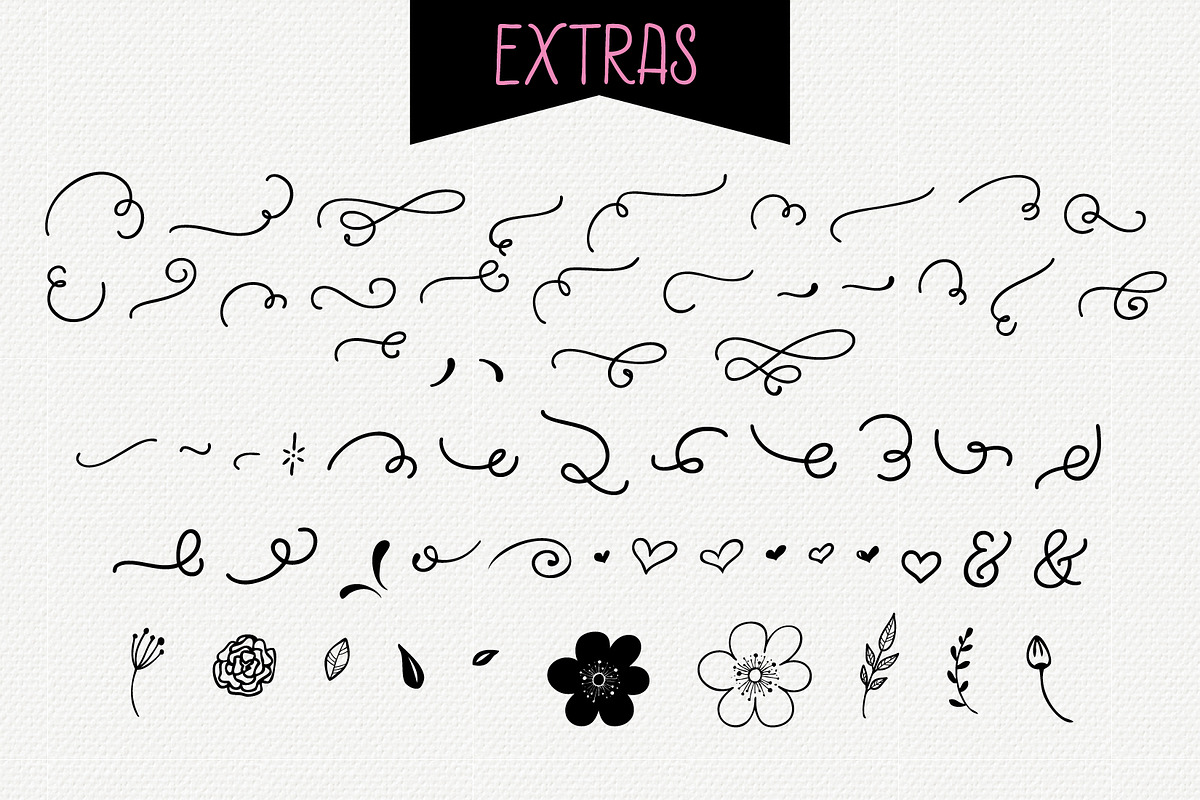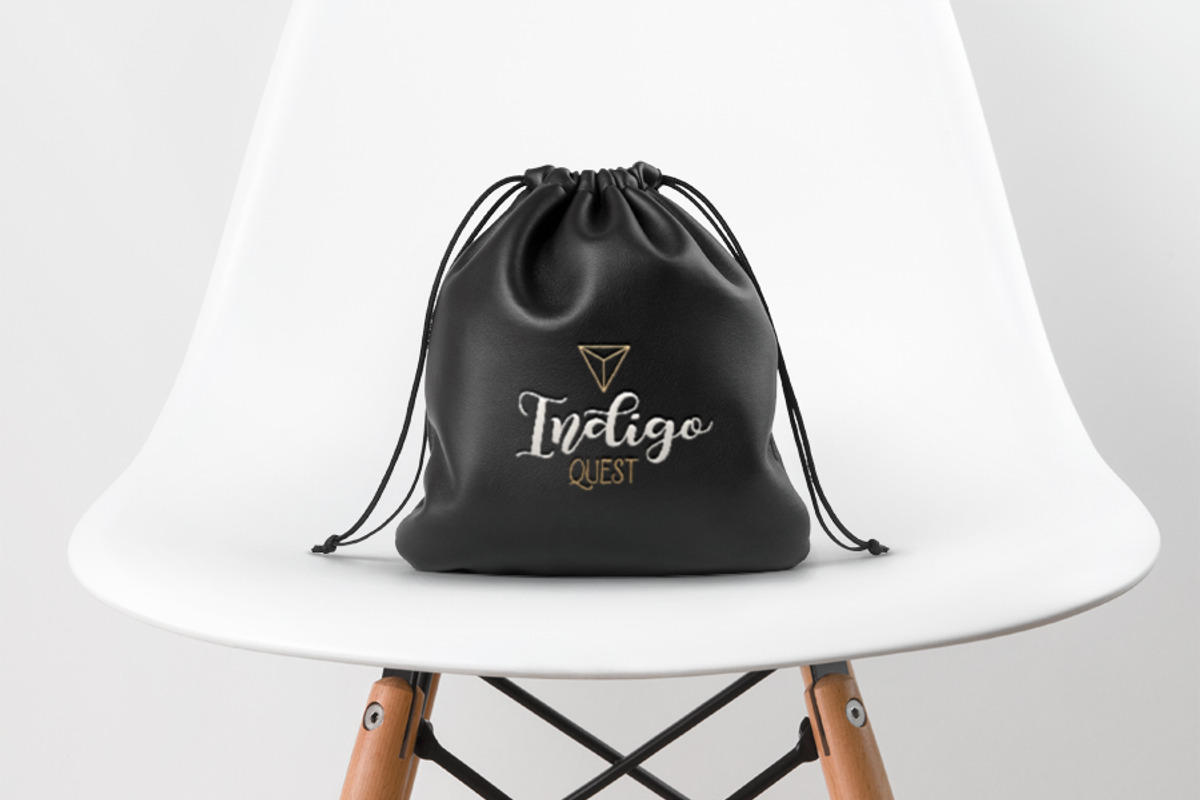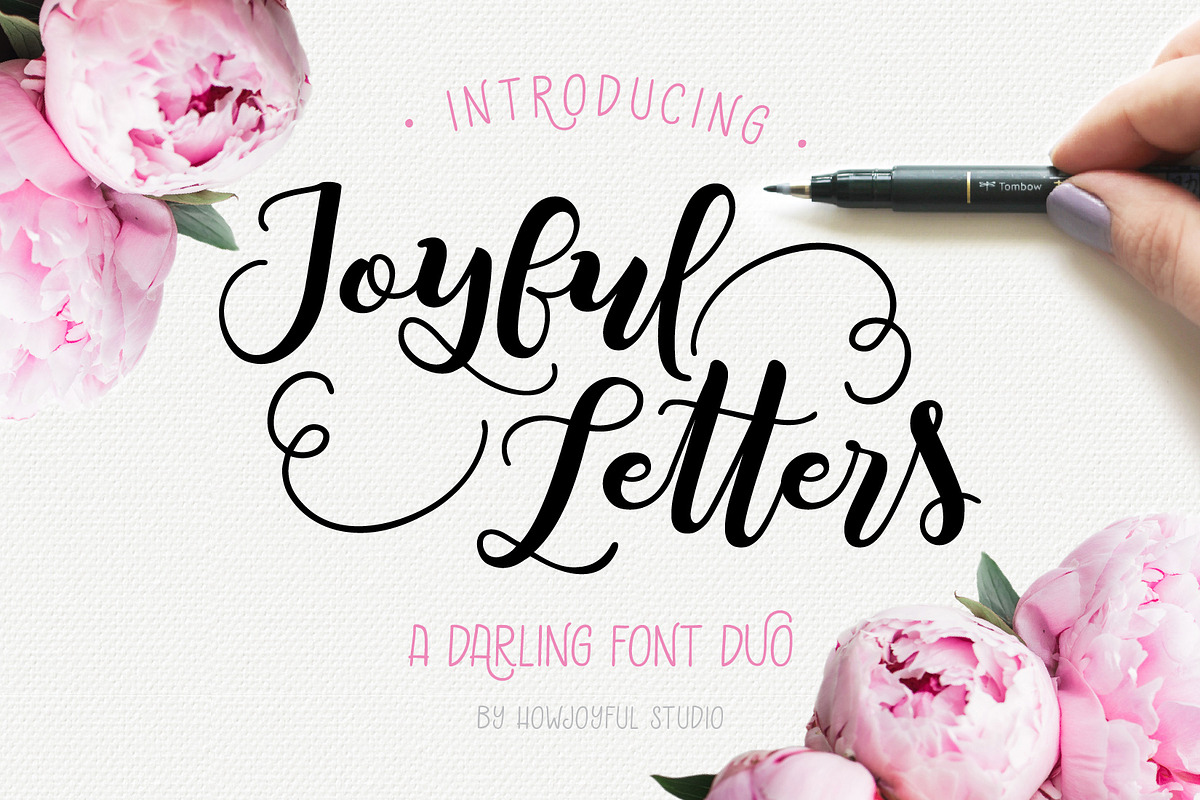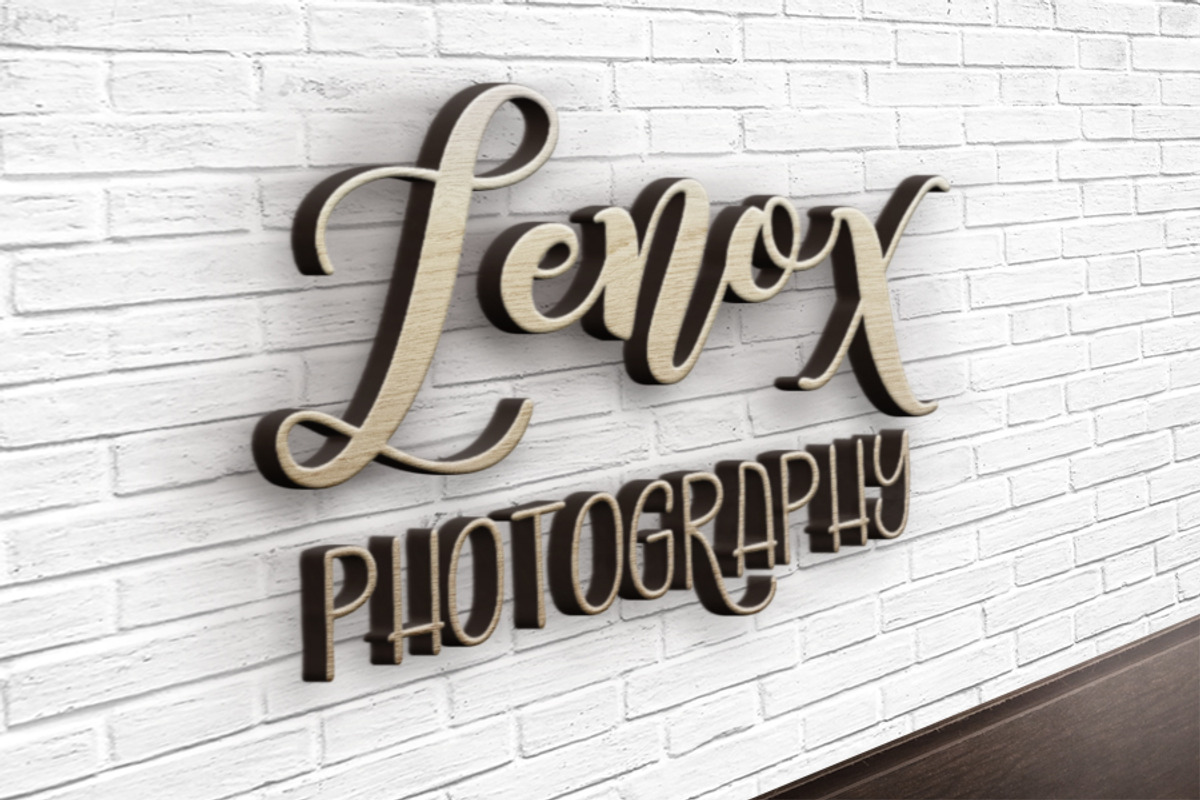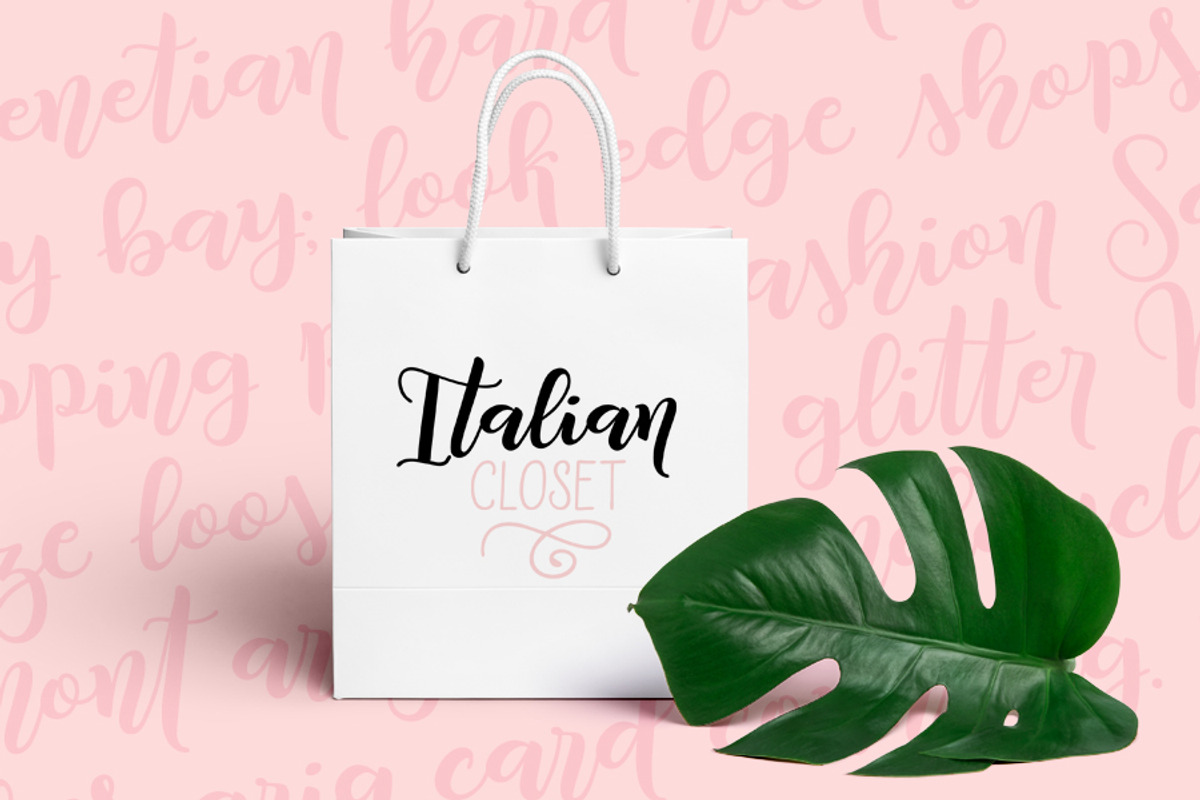
Joyful Letters font duo
Joyful letters was hand-lettered using a Tombow fudenosuke pen and lots of love, it features my signature script lettering style and a playful all caps sans serif. It features super clean outlines for detailed projects. I've added up to 6 different alternates for some letters and a nice selection of lovely ligatures to give a more natural look, so it can look less like a font and more like hand-lettering.
- The Scrip has 550+ glyphs total and the all CAPS has over 380 glyphs
- Coded OpenType features: stylistic alternates, initial and end characters, swashes, and ligatures